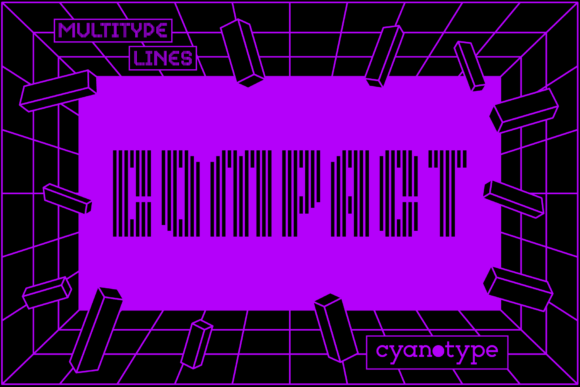
Journey into the realm of typography with MultiType Lines Compact, the font that redefines elegance and innovation. This meticulously crafted pixelated font, borne from the creative minds at Cyanotype, transcends the boundaries of ordinary typefaces. Embrace the power of uniqueness and adorn your designs with a touch of distortion and trendsetting appeal.
As you delve into the depths of MultiType Lines Compact, prepare to be mesmerized by its distinctively shaped characters, each pixel meticulously arranged to create a captivating visual experience. Its inherent charm lies in its ability to effortlessly elevate your designs, transforming them into mesmerizing masterpieces. Immerse yourself in a world where creativity knows no limits and let MultiType Lines Compact take you on an extraordinary typographic voyage.
With MultiType Lines Compact, you gain access to a treasure trove of glyphs and swashes, accessible with effortless ease thanks to its PUA encoding. Unleash your imagination and explore the endless possibilities, crafting designs that radiate sophistication and nonconformity. Prepare to captivate your audience with visually stunning text that commands attention and leaves an indelible mark.
Picture your designs adorned with MultiType Lines Compact, gracing official letters, invitations, posters, and social media posts. Its pixelated charm adds a touch of modernity and intrigue, ensuring that your words stand out from the crowd. Whether you seek to craft a compelling brand identity or simply elevate your personal projects, MultiType Lines Compact emerges as the perfect companion.